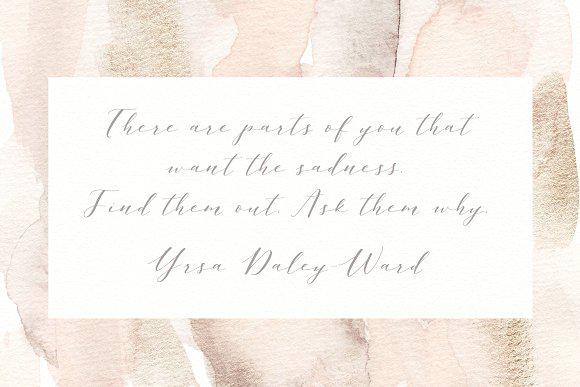
Looking for letter fonts.
Fonts design letters. Plus with a creative twist or dash of detail they have a cool contemporary vibe. Monolith is an ultra minimalist font featuring a thin letter design. Here are 50 free modern fonts that will give your design work an up to date edge. A slab serif font with shadows on the right the design includes a full set of upper case letters numbers and a selection of special characters.
The font includes multilingual support and its available in multiple weights. The lettering design of this stunning handmade font pays homage to japanese design. Download 100 font gratis untuk desain grafis dan web. Click to find the best 397 free fonts in the letter style.
Form follows function in modernist design and the principle certainly applies to modern fonts. Making the web more beautiful fast and open through great typography. Unfortunately instagram filters out some of the fancy letters and symbols probably because they dont want people to abuse certain unicode stuff like the excessive diacritics used in the glitch text font that youll see in the list. This font can also be used for logos titles and invites.
Hand lettered is the style where you draw each letter individually as opposed to writing them as in cursive or calligraphy. 47235 free fonts in 23586 families. Every font is free to download. I hope you find all these instagram fonts useful.
The licence mentioned above the download button is just an indication. Yahiko playful handwritten font otf ttf woff yahiko is one of the great lettering fonts available online today. Based on geometric lines and forms modern fonts are clean clear and easy to read. The fonts presented on this website are their authors property and are either freeware shareware demo versions or public domain.